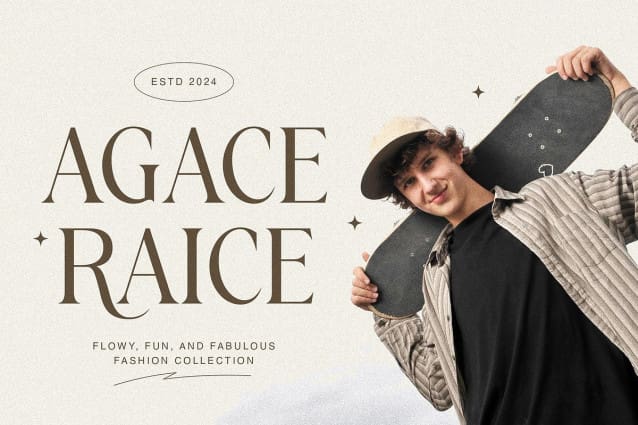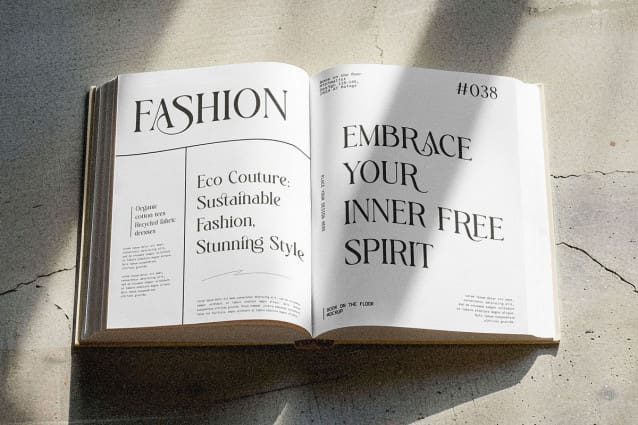
Rading Font
Rading Font is a beautiful Stylish Serif Font designed for unique, luxurious and classy design needs. Its distinctive shape enhances brand value, making it ideal for designers and product owners who desire elegance and sophistication. Perfect for Branding project ,Logos,Social media posts,Advertisement,Label,Product packaging,Photography,Wedding design,Invitation,Stationery Rading ensures high readability and beautiful design, perfect for enhancing any project with a touch of luxury and elegance. Rading transforms ordinary designs into extraordinary works of art, ensuring your project stands out in the most elegant way.